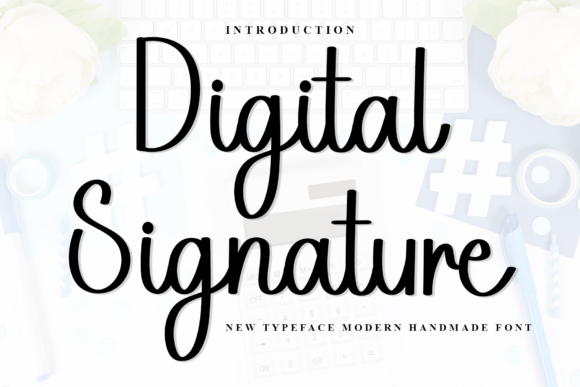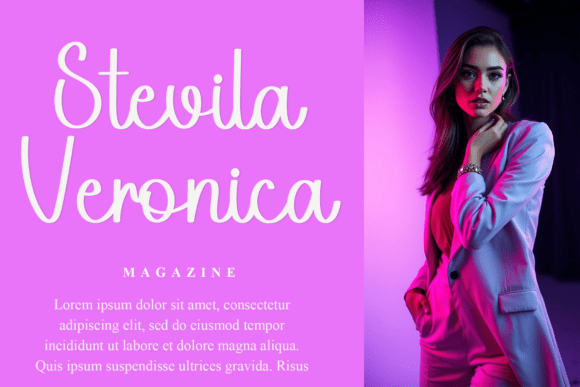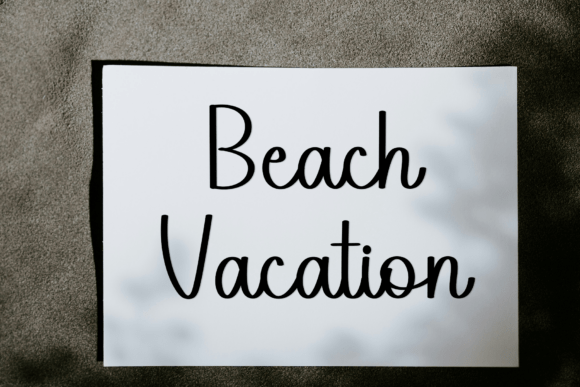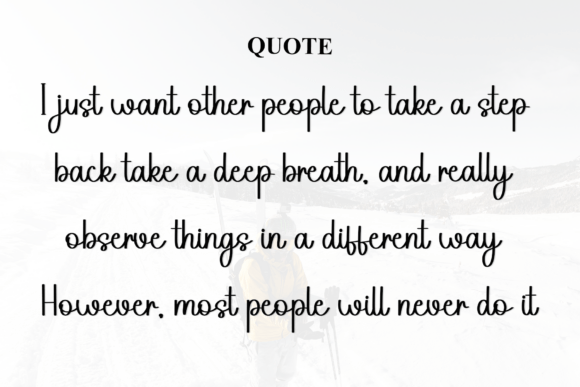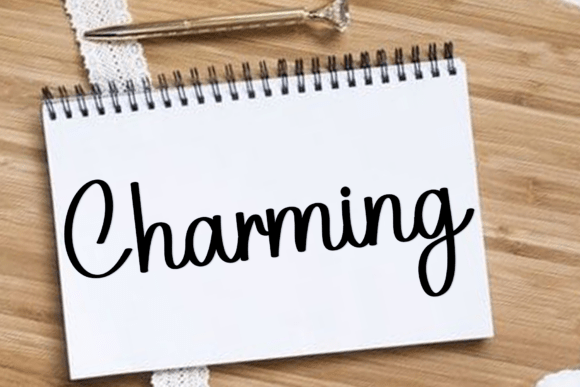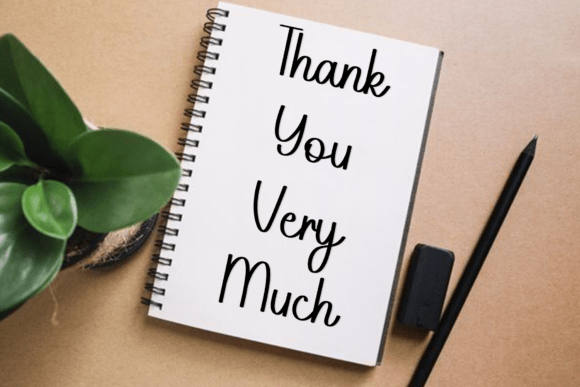
Unleashing Your Personal Touch: The Power of Digital Signature Font
There’s nothing quite like the feeling of signing your name to a new project or creation. It’s a moment of pride, of ownership, and of putting your unique stamp on the world. As designers, we strive to bring that same sense of personality to every piece we create – and that’s where the Digital Signature Font comes in.
This beautiful script font is designed to capture the essence of a refined personal signature, with smooth strokes, generous curves, and a natural baseline that makes it perfect for logos, watermarks, invitations, and social posts. With its advanced features like OpenType ligatures and alternates, it’s a game-changer for designers looking to add a custom, polished touch to their work.
Whether you’re a seasoned pro or just starting out, the Digital Signature Font is a valuable tool that can elevate your designs and make them truly stand out from the crowd.
- Unique Characteristics: Features a unique blend of modern and classic design elements, making it suitable for both personal and professional digital signatures.
Digital Signature Font Review
Overall, I think the Digital Signature Font is a solid choice for any project that requires a professional and authentic touch. ✨ Here are some of its strengths:
- The font is highly customizable, allowing you to adjust the size, color, and style to fit your needs.
- The signature font is easily recognizable and conveys a sense of trust and reliability.
- The font is highly versatile and can be used in a variety of contexts, from business documents to personal letters.
- The font may not be suitable for very small text sizes, as the details can get lost.
- The font may not be as unique or distinctive as some other options, which could make it blend in with other fonts.
- The font may require additional styling or design elements to make it stand out.
Overall, I think the Digital Signature Font is a good choice for anyone looking for a professional and authentic touch. While it may have some limitations, its versatility and customizability make it a solid option for a wide range of projects.